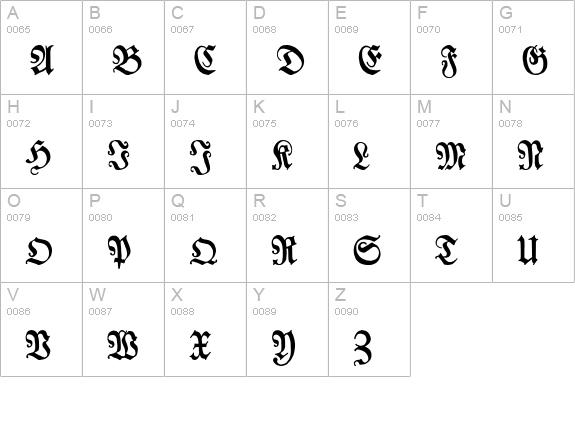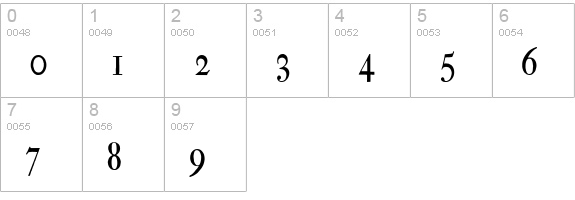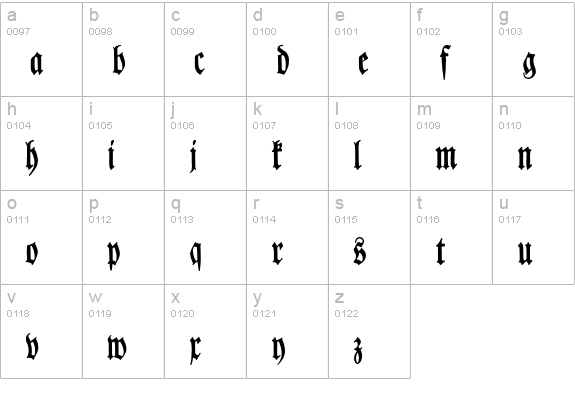
LutherscheFraktur Font Details
LutherscheFraktur is a stunning and elegant font that harkens back to traditional German blackletter typefaces. Its intricate details and sharp angles give it a sense of sophistication and historical charm. The font exudes a sense of tradition and authenticity, making it perfect for projects that require a touch of old-world elegance. What sets LutherscheFraktur apart is that it is not only beautiful but also free to download. You can easily access this exquisite font at FontsMarket.com, where you can add it to your collection without any cost. Whether you're working on invitations, posters, or any other design project, LutherscheFraktur is sure to make a bold statement and elevate your work to new heights. Download this free font today and infuse your projects with a touch of timeless beauty.